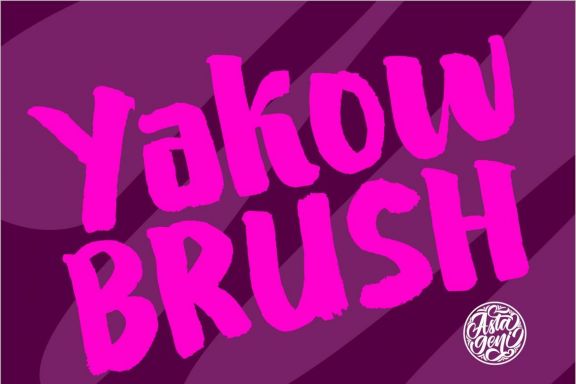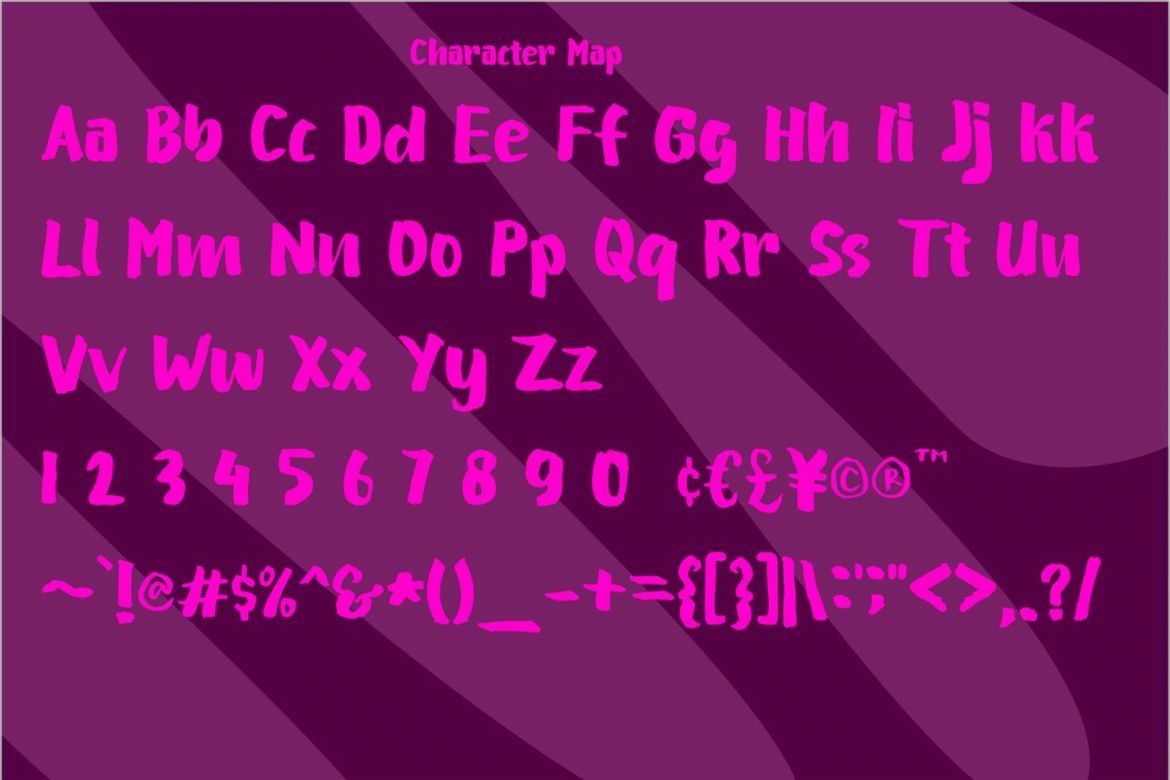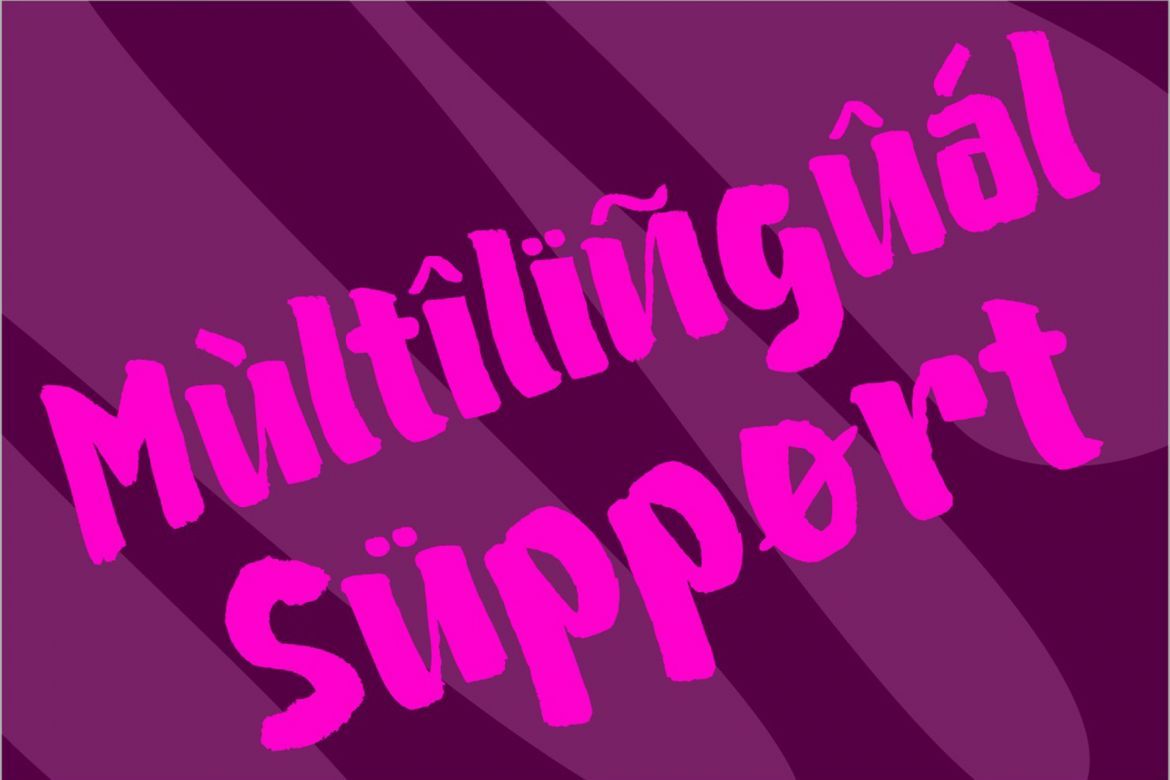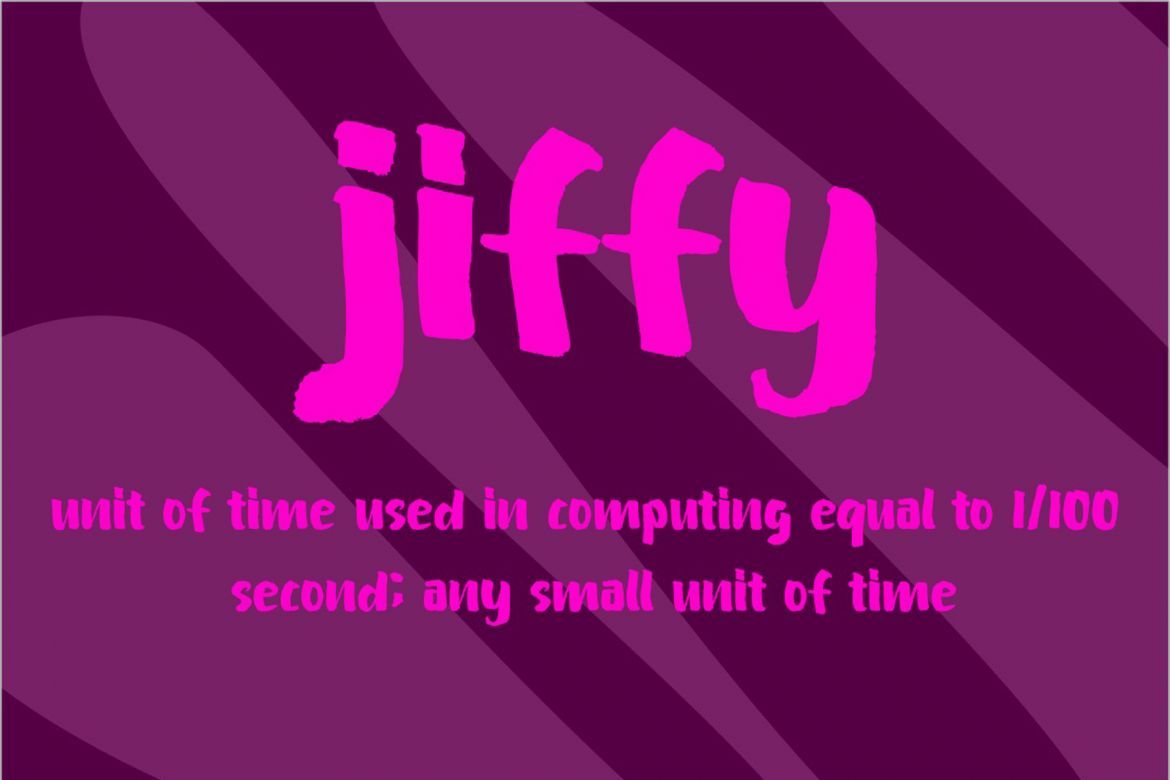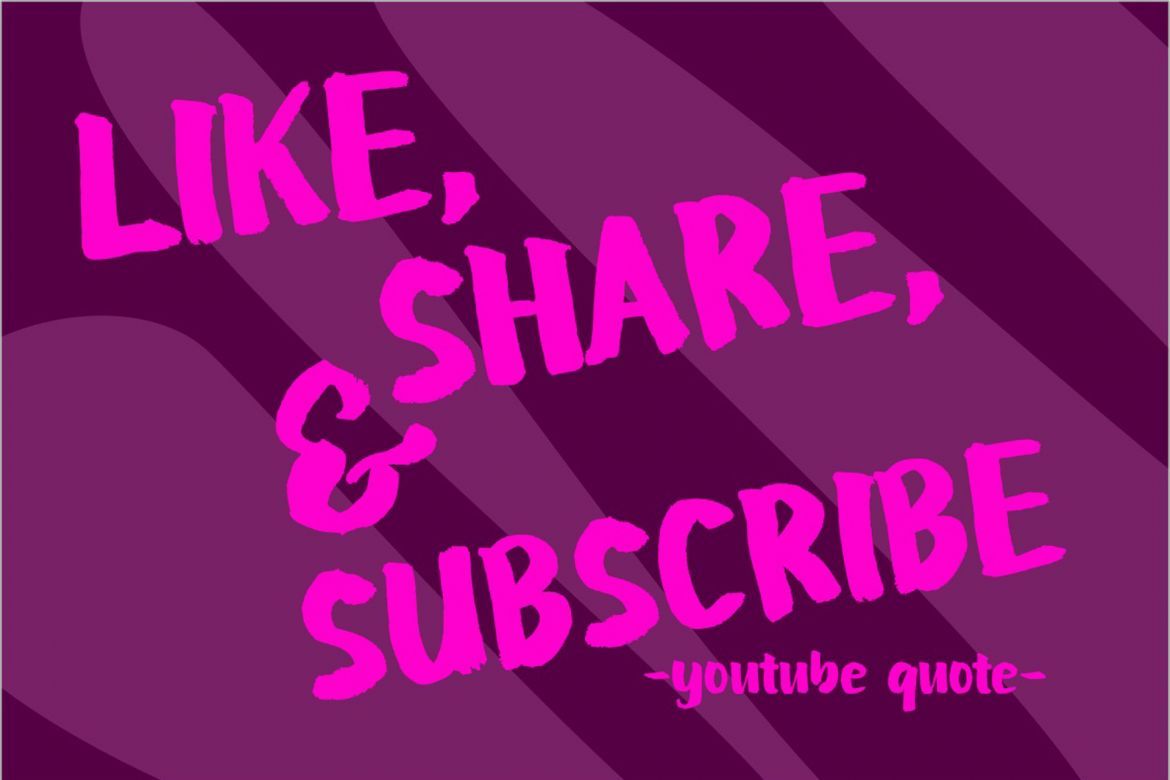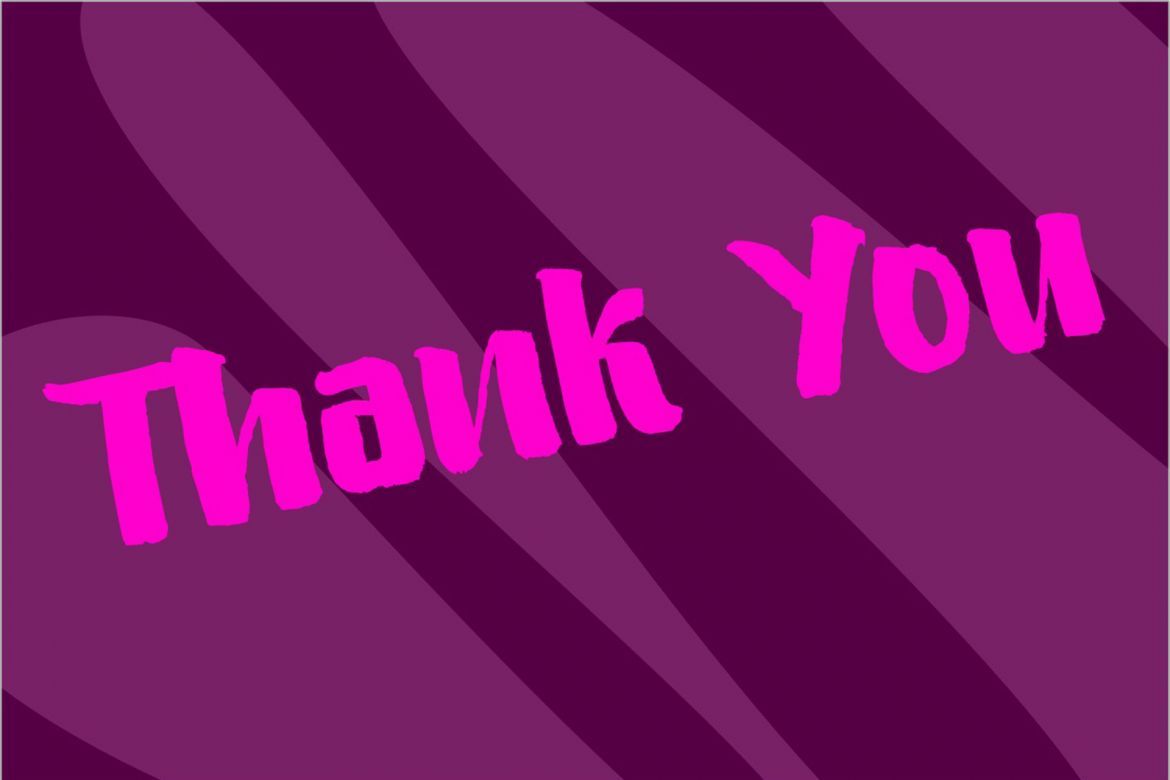
Yakow Brush Font
Introduce, this is our latest product, we name it This product is Yakow BRUSH.
Yakow BRUSH is made from Real Brush painted in Paper and Carefully Digitalized and Optimized to give the best Result